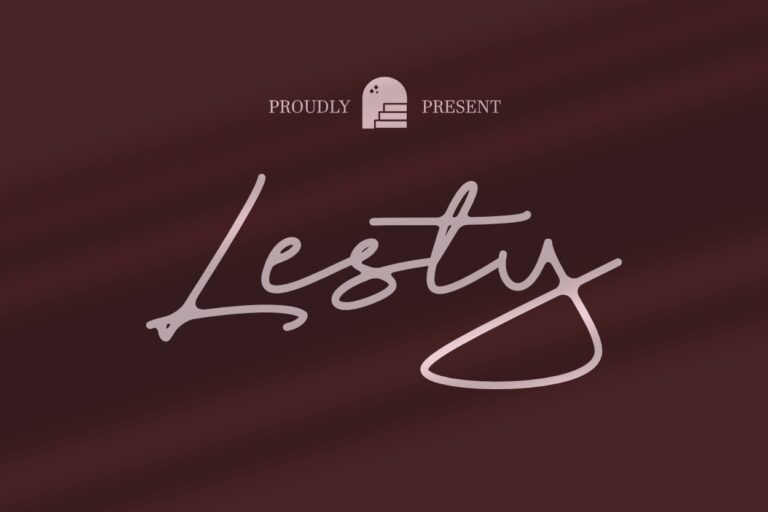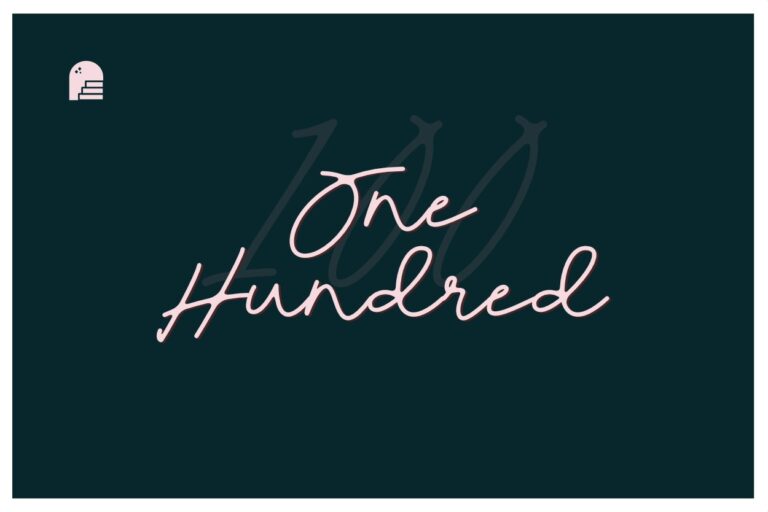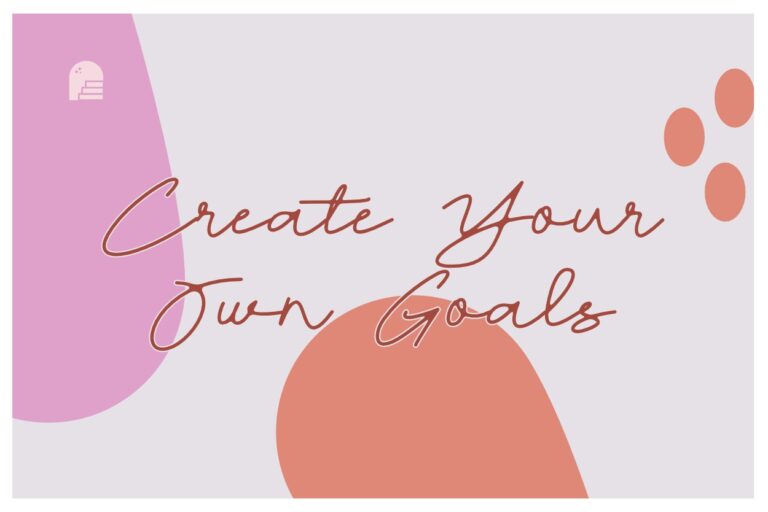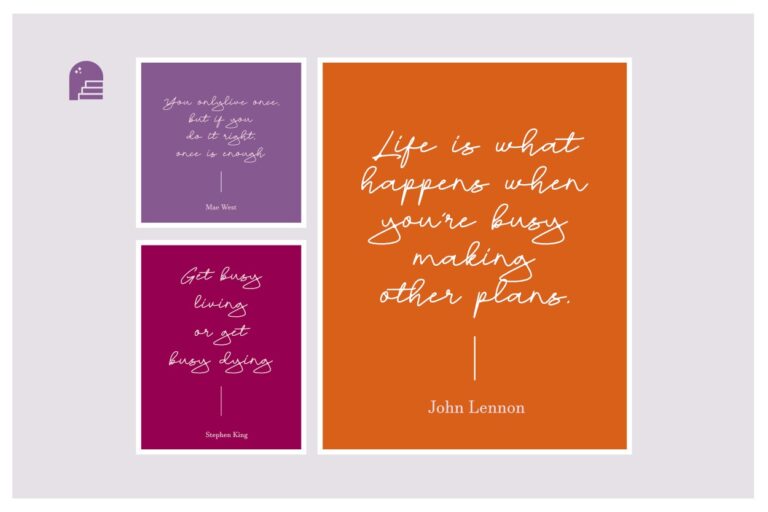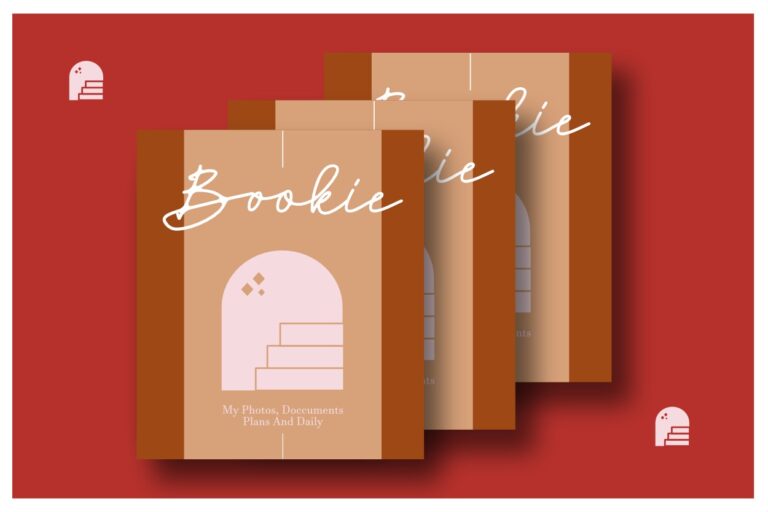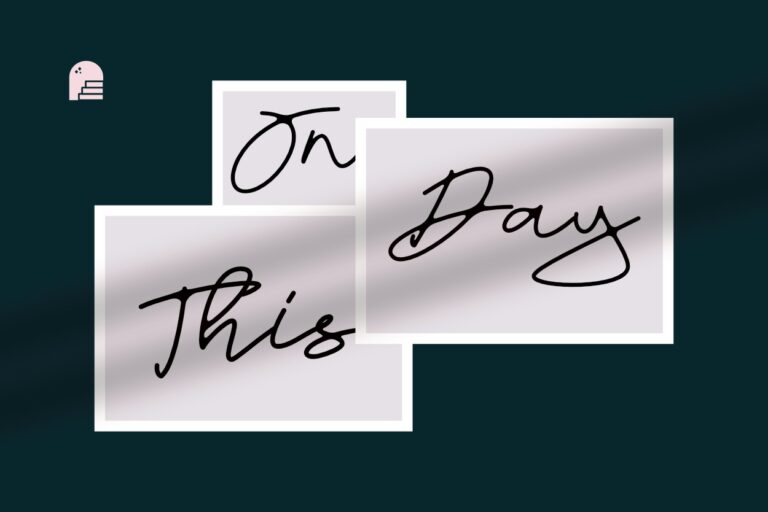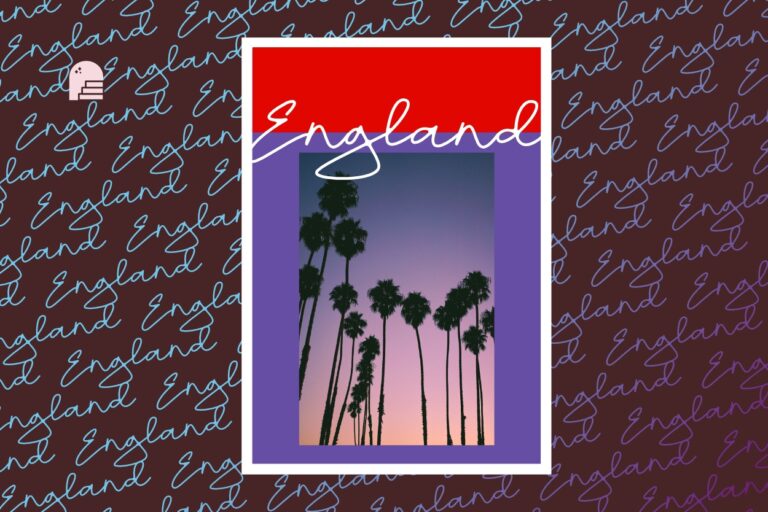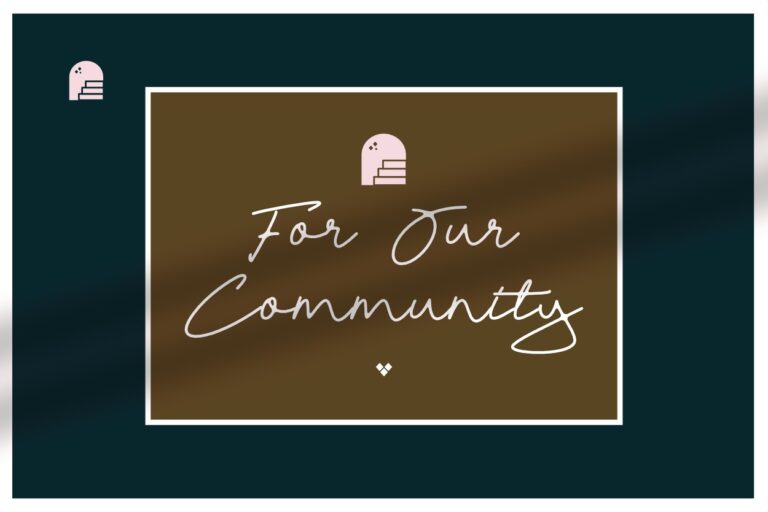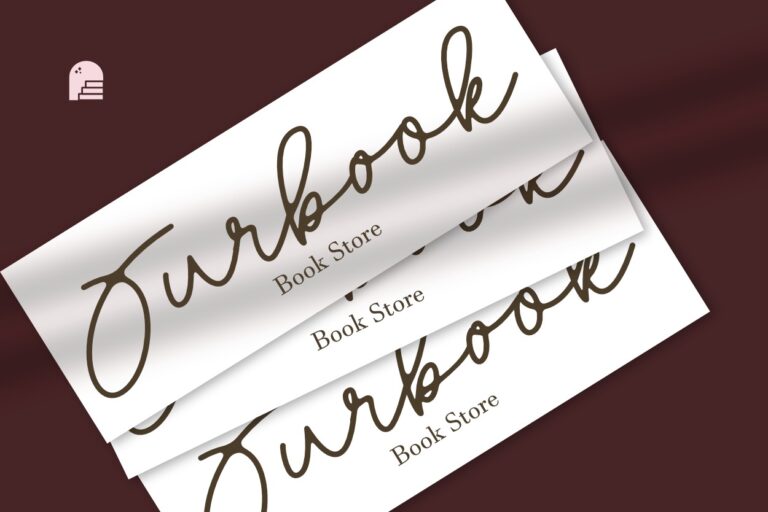
LESTY SCRIPT FONT
Introducing Lesty an elegant new script font! This font is specially created for those of you who need a touch of elegance to design your projects next with perfect results and amazing.
This fresh script font a very beautiful and interesting Handwritten, and comes with a perfect line for use for various purposes. Like titles, signatures, logos, correspondence, wedding invitations, letterheads, nameplate, labels, bulletins, posters, badges, Branding, Greeting Cards, etc.